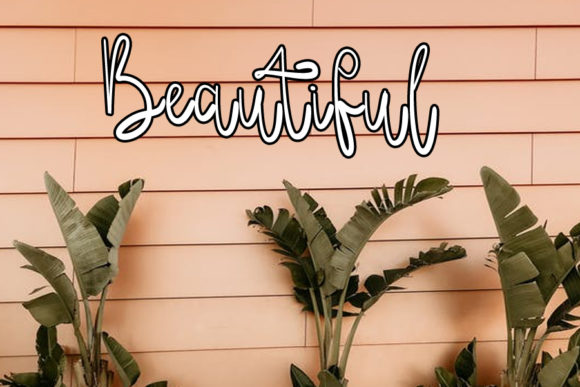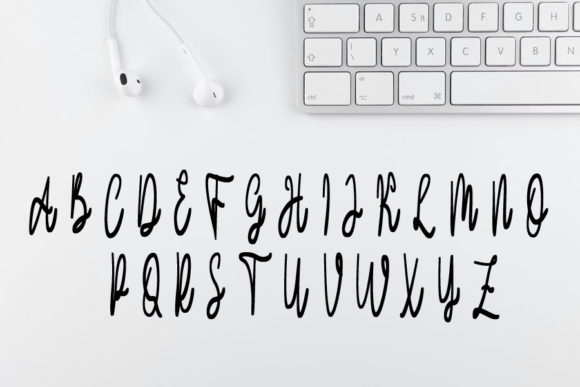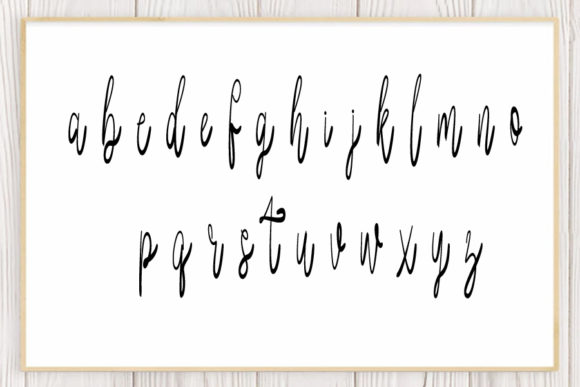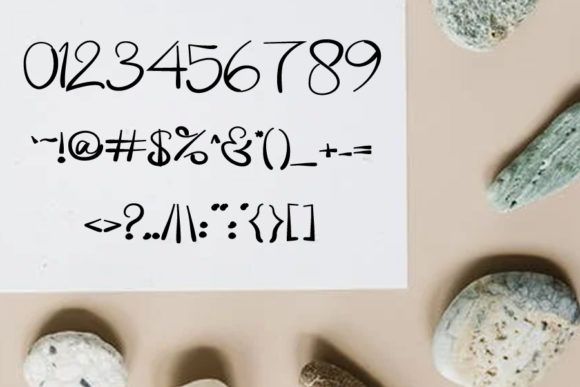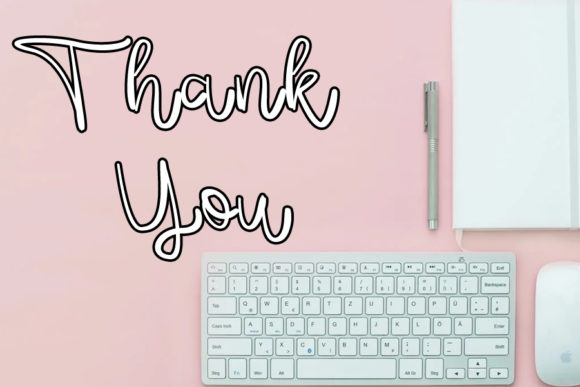
Introduction to Melita Font Font
Fonts play a crucial role in design, and the Melita Font font is a typeface that brings both character and versatility to any project. Whether you’re working on a branding project, a website, or a print design, the Melita Font font offers a unique style that can elevate your work.
Melita is a smooth, cute and trendy handwritten font.
This font has a lovely touch of character, perfect for a wide variety of designs Add it to your most creative ideas and make stunning designs.
Key Features of Melita Font Font
Why Choose Melita Font Font?
The Melita Font font is more than just a typeface – it’s a design tool that helps you communicate your message with style and clarity. Its unique character set and versatile design make it suitable for a wide range of applications, from elegant invitations to bold headlines.
With its carefully crafted letterforms and balanced proportions, the Melita Font font ensures readability and visual appeal across all mediums.
What makes Melita Font font special?
The Melita Font font stands out with its unique design, exceptional readability, and versatility across various design applications.